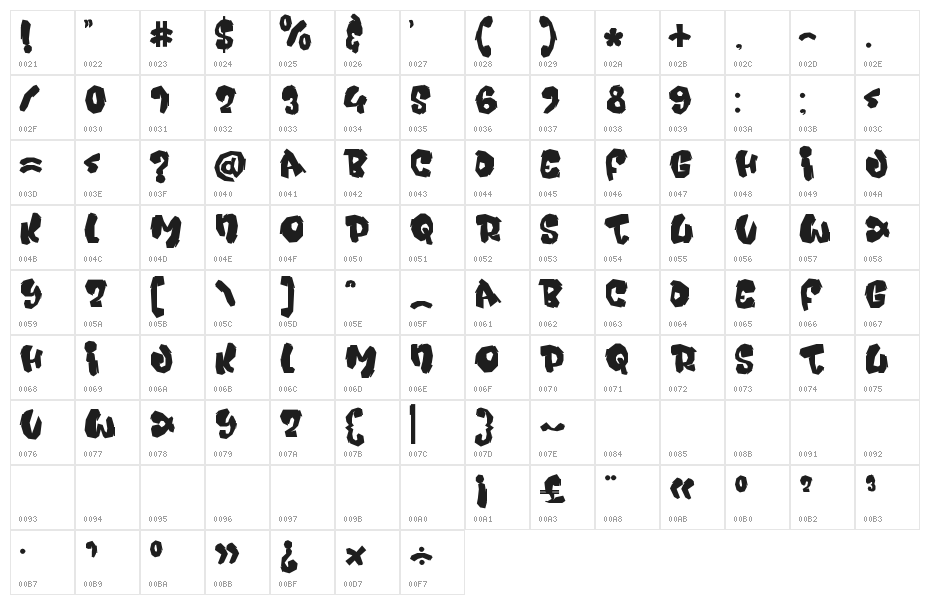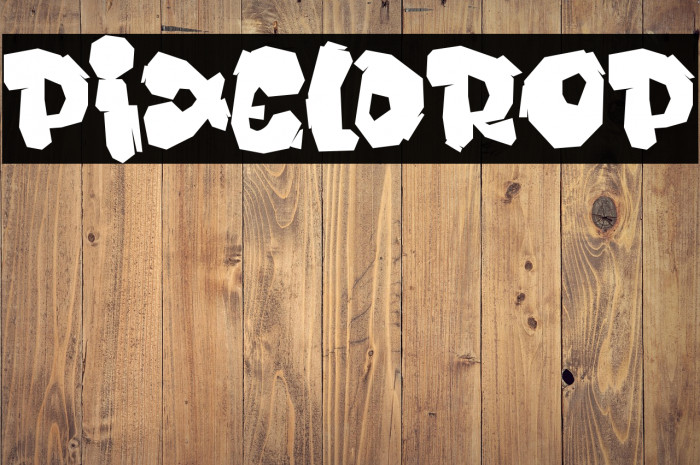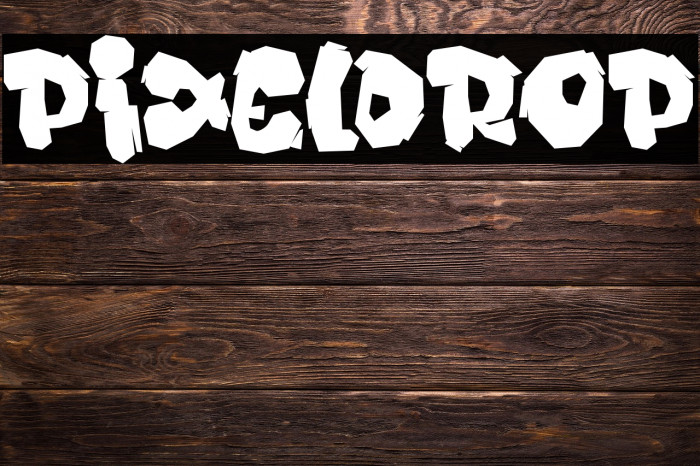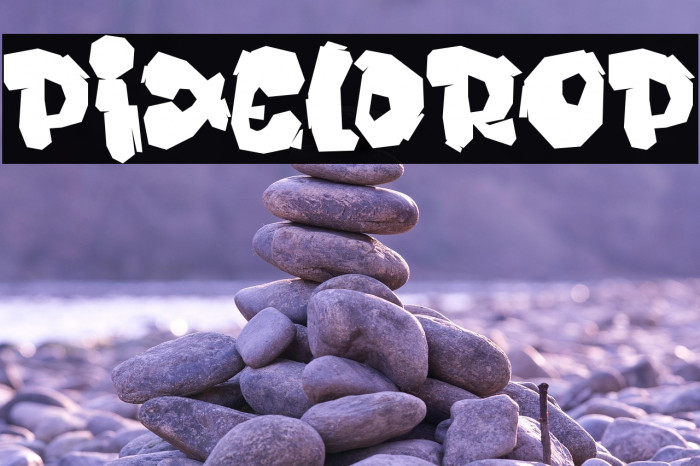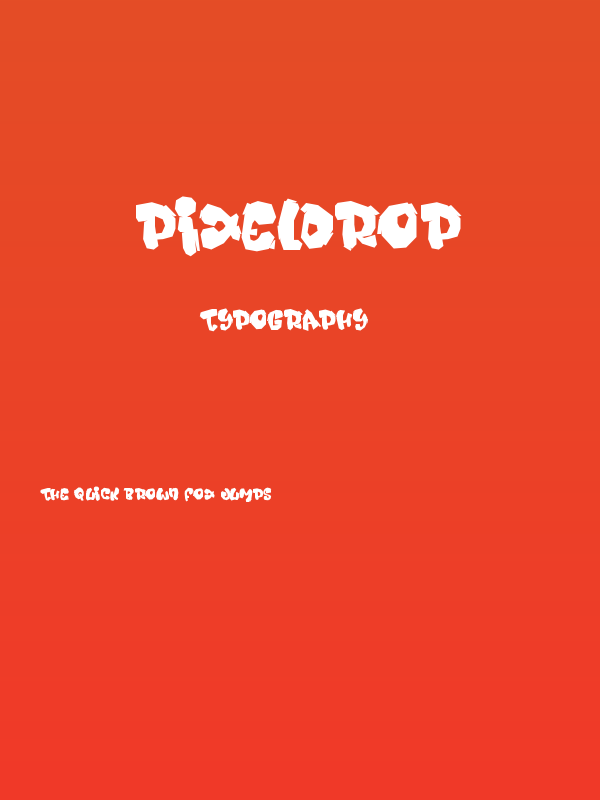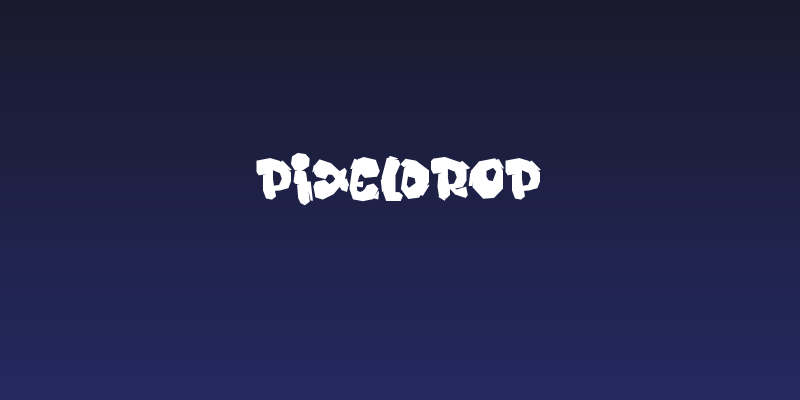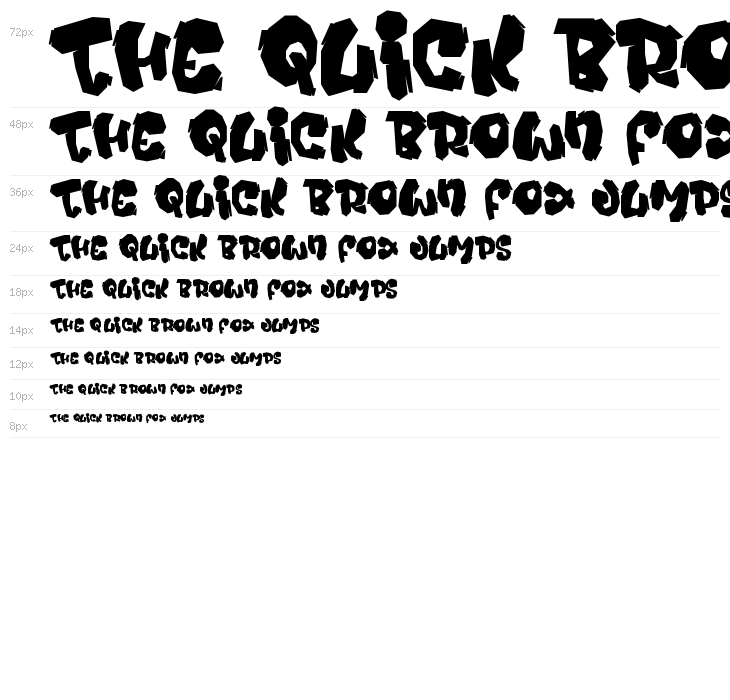
Pixeldrop Font
Pixeldrop Description
This font features a bold and jagged design, reminiscent of shattered glass or rough stone. Each character is uniquely crafted with sharp angles and irregular edges, giving it a rugged and edgy appearance. The uppercase and lowercase letters maintain a consistent style, while the numbers and special characters follow suit with the same bold, angular aesthetic. The font's distinct look makes it stand out, ideal for projects that require a strong visual impact.
| Overall Style | Modern, Edgy |
| Proposed Projects | Ideal for posters, album covers, video game graphics, and any project needing a bold, impactful design. |